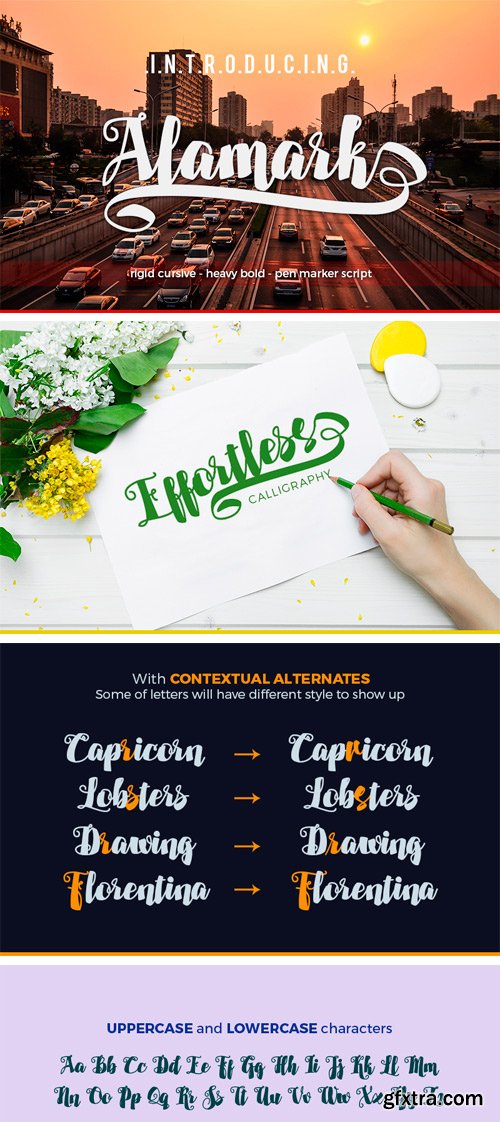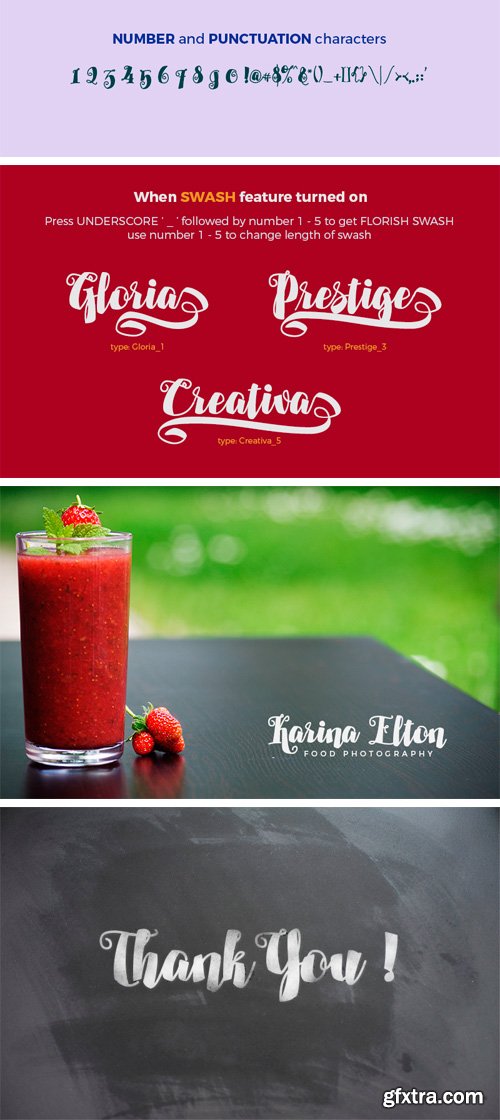
Fontbundles - Alamark Script Font
Introducing Alamark, a cursive font with heavy bold looking. Its look made by pen marker or chalk makes it the good for display like titling, logotype, branding, printed quotes, wedding invitation cards, social media headers, product packaging, home decor and a lot more.